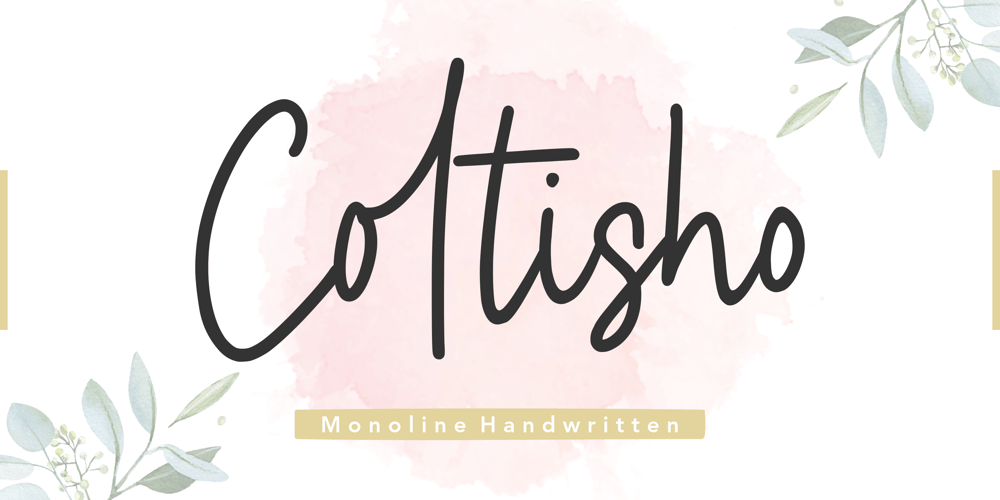
Coltisho Font Family was designed by Restu Angga and published by Balpirick. Coltisho contains 1 styles and family package options. Coltisho is a magical and unique handwritten font. Its sweet and relaxed style makes it incredibly versatile. Use it to elevate each of your designs.